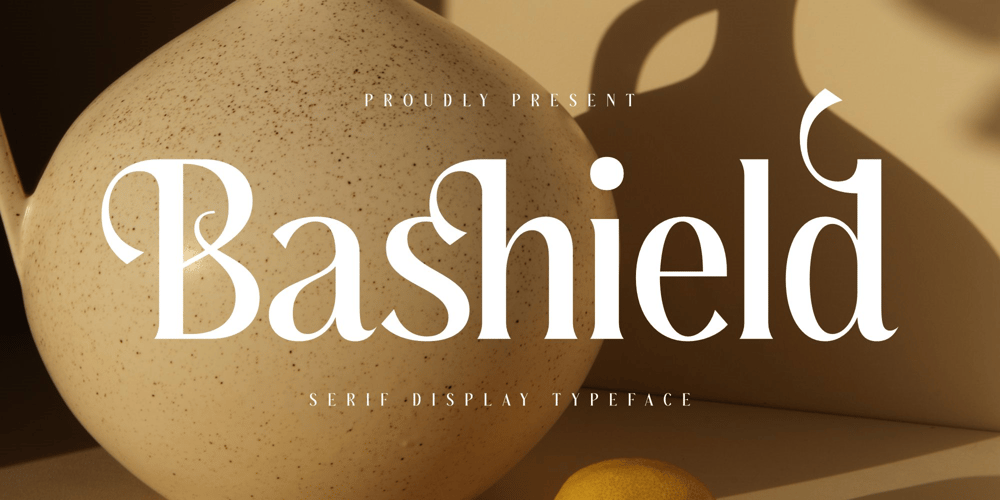
Bashield
Bashield font
Bashield Font Family was designed by Heru Utama Putra and published by Letterena Studios. Bashield contains 2 styles and family package options. Bashield is a modern and classic serif typeface, with its own unique look. This typeface is perfect for an elegant & luxurious logo, book or movie title design, fashion brand, magazine, clothes, lettering, quotes, and so much more.